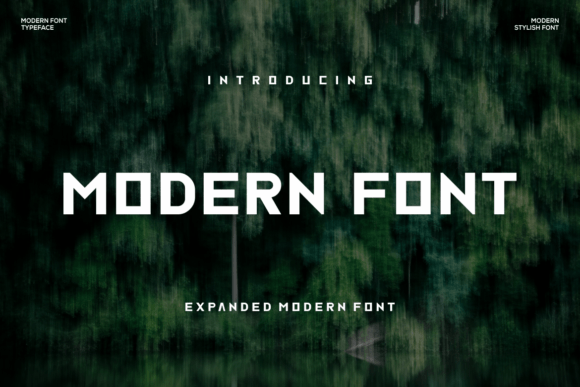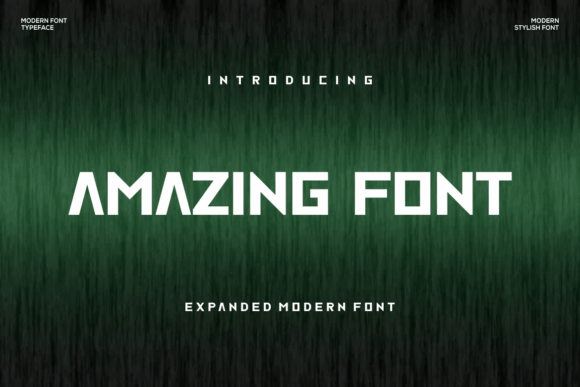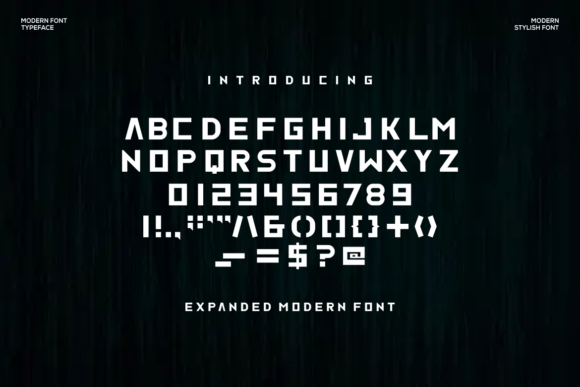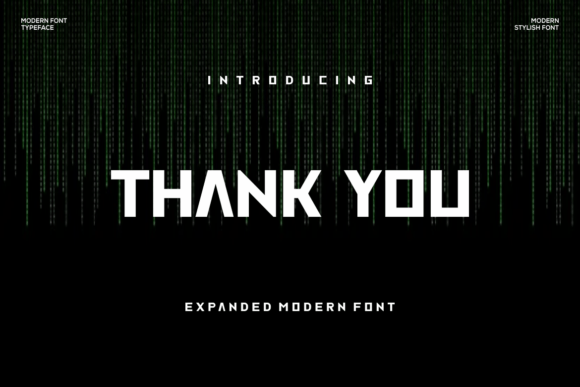
Introducing Dabbah Font: The Modern Display Font for Creative Projects
In the world of design, a font can make all the difference in creating a lasting impression. Whether you’re working on a branding project, designing a logo, or crafting unique products, the right font can elevate your work from ordinary to extraordinary. That’s why we’re excited to introduce Dabbah Font, a modern display font that is bold, authentic, and versatile. In this article, we’ll explore the features and benefits of Dabbah Font and how it can enhance your creative projects.
What is Dabbah Font?
Dabbah Font is a carefully crafted display font designed to make a statement. Its bold and authentic style makes it perfect for a wide range of applications, from logos and t-shirt printing to creative products and more. The font’s modern aesthetic is both sleek and sophisticated, ensuring that your designs stand out in a crowded marketplace.
Key Features of Dabbah Font
- Bold and Authentic Style: Dabbah Font boasts a bold and authentic style that commands attention. Its unique character set makes it perfect for creating memorable logos, headings, and titles.
- Versatility: This font is incredibly versatile and can be used in a variety of contexts, from digital designs to print materials.
- High-Quality Design: The font is designed with precision and attention to detail, ensuring that it looks great in any size or application.
Benefits of Using Dabbah Font
So, why choose Dabbah Font for your next project? Here are just a few benefits of using this modern display font:
- Stand Out from the Crowd: With Dabbah Font, you can create designs that stand out from the competition. Its bold and authentic style ensures that your work gets noticed.
- Save Time and Effort: The font’s ease of use and versatility save you time and effort, allowing you to focus on the creative aspects of your project.
- Professional Results: Dabbah Font is designed to produce professional results, making it perfect for clients who demand high-quality designs.
Use Cases for Dabbah Font
Dabbah Font is an incredibly versatile font that can be used in a wide range of applications, including:
- Logo Design: Create memorable and impactful logos that make a lasting impression.
- T-Shirt Printing: Design eye-catching t-shirts that stand out from the crowd.
- Creative Products: Add a professional touch to your creative products, such as posters, flyers, and brochures.
- Branding Projects: Elevate your branding projects with a bold and authentic font that commands attention.